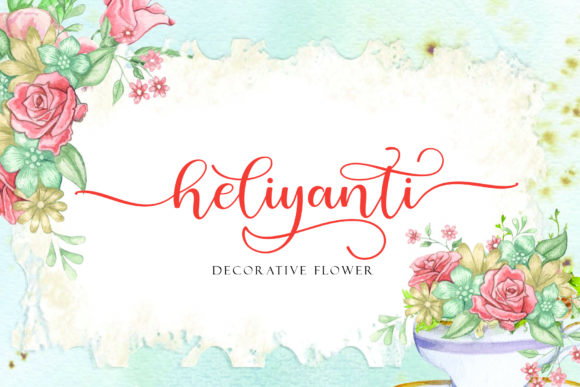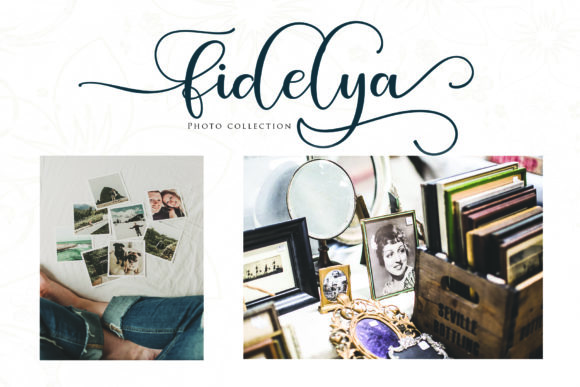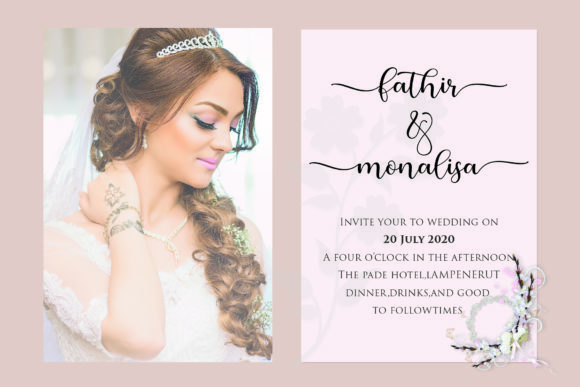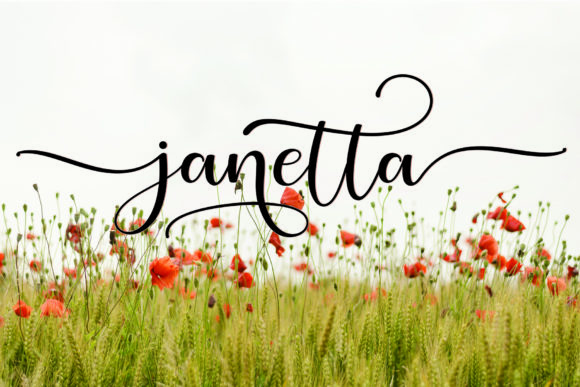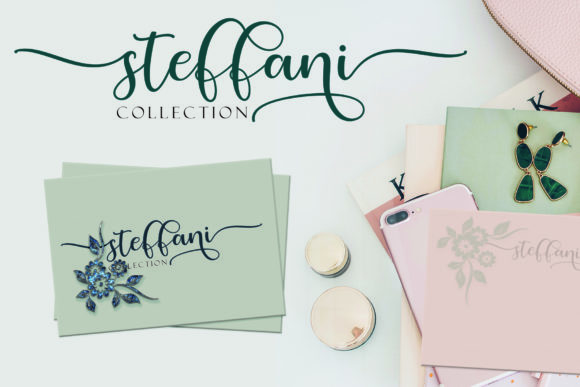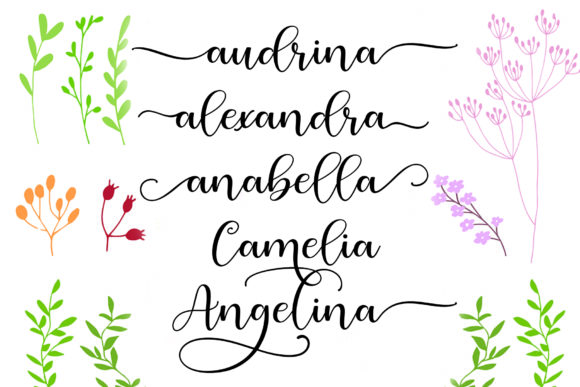
Unlock the Artistry of Berliyan Script Font
Have you ever been stuck on a design project, unable to put your finger on the perfect font to bring your idea to life? The moment of inspiration often strikes when you least expect it – in a coffee shop, during a walk, or even in your dreams. That’s where the magic happens, and your creative vision starts to take shape.
Meet Berliyan Script Font, a charming and elegant script designed to elevate your designs and make them truly special. This beautiful font is more than just a typeface – it’s a tool to express your creativity and bring your unique style to the forefront. Whether you’re a seasoned designer or just starting out, Berliyan Script Font is a valuable addition to your toolkit, guaranteed to add a touch of sophistication to your work.
Berliyan Script Font Key Features
- Font Family: Berliyan Script
- Unique Characteristics:
- Handwritten, elegant script font
- Perfect for wedding invitations, greeting cards, and other formal events
Review of Berliyan Script Font
I’ve had the chance to work with the Berliyan Script Font, and here’s my honest review.
- The font has a beautiful, elegant feel to it. It’s perfect for creating a sophisticated and luxurious look.
- The script style is well-executed, with smooth connections between letters and a consistent flow.
- The font is highly legible, even at smaller font sizes, making it suitable for a wide range of applications.
- The font family includes a variety of weights and styles, providing flexibility for designers to choose the perfect fit for their project.
- The font may not be suitable for projects that require a more modern or edgy look. It’s best suited for traditional or classic designs.
- The font family is relatively small compared to other script fonts, which may limit its versatility.
Overall, I think the Berliyan Script Font is a great choice for designers looking to create elegant and sophisticated designs. While it may not be suitable for every project, it’s a solid addition to any designer’s toolkit.
The Berliyan Script Font is ideal for:
- Event and festival promotions
For optimal results, use the Berliyan Script Font in conjunction with elegant graphics and soft color palettes.
Alternatives to Berliyan Script Font for Designers
Carolyna Pro is a luxurious script font that combines elegance and sophistication. It’s ideal for high-end branding, luxury packaging, and fine art projects. It features a wide range of ligatures and alternate characters, making it perfect for designers who want to add a touch of luxury to their designs.
Comparison to Berliyan Script Font: Carolyna Pro has a more refined and elegant feel compared to Berliyan Script Font, which has a more rustic and vintage feel. Carolyna Pro is also more versatile and can be used in a wider range of projects.
Great Vibes is a modern script font that features a relaxed and casual feel. It’s perfect for designers who want to create a friendly and approachable brand image. Great Vibes is ideal for use in social media, advertising, and packaging design.
Comparison to Berliyan Script Font: Great Vibes has a more modern and playful feel compared to Berliyan Script Font, which has a more vintage and classic feel. Great Vibes is also more suitable for digital designs, while Berliyan Script Font is better suited for print designs.
Pacifico is a beautiful script font that features a tropical and beachy feel. It’s perfect for designers who want to create a fun and relaxed brand image. Pacifico is ideal for use in travel, food, and lifestyle projects.